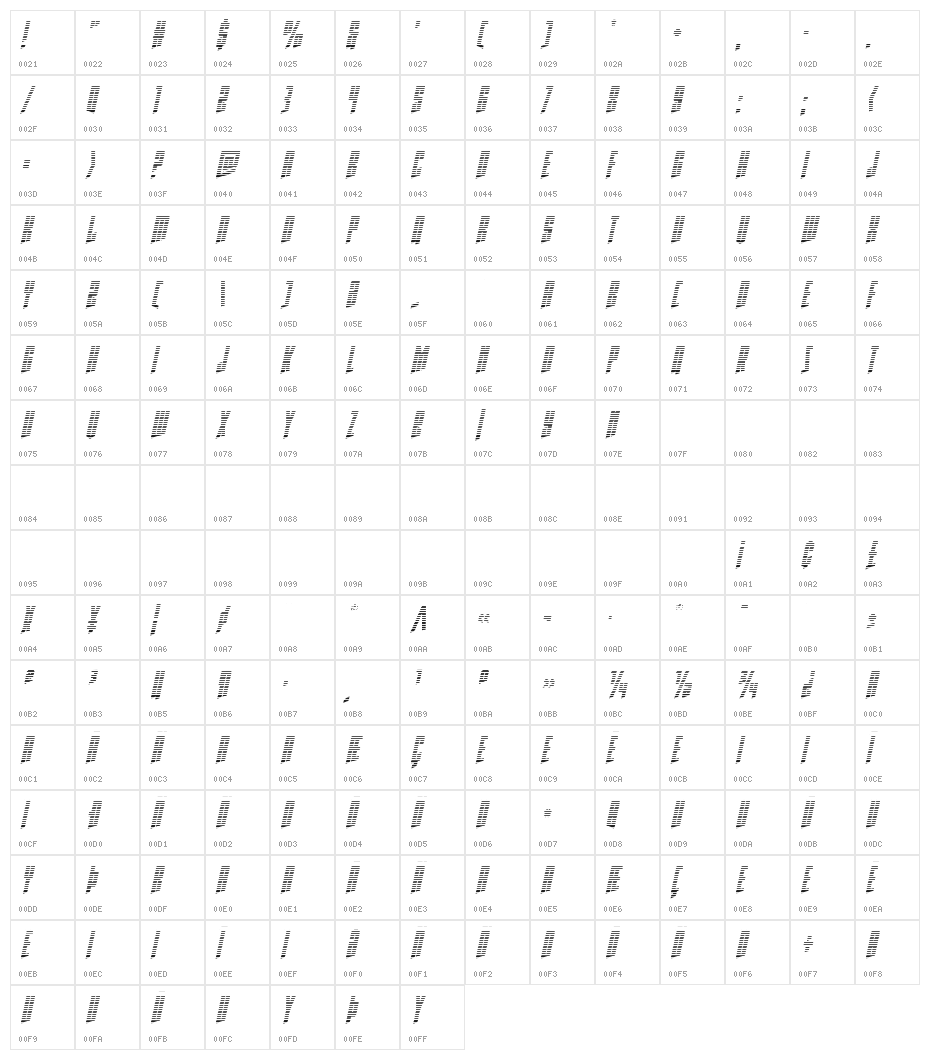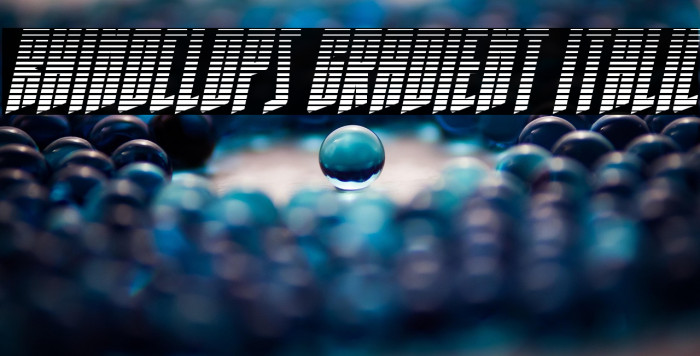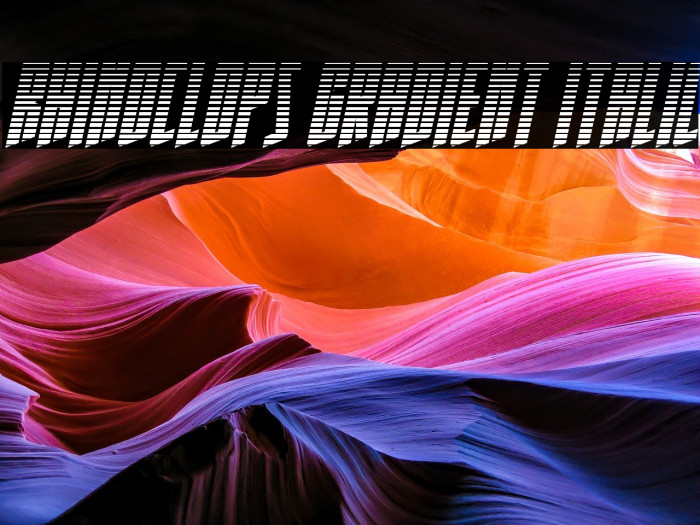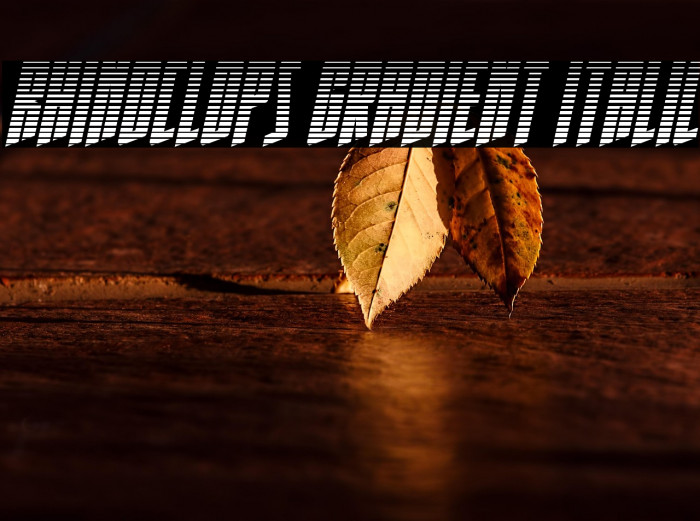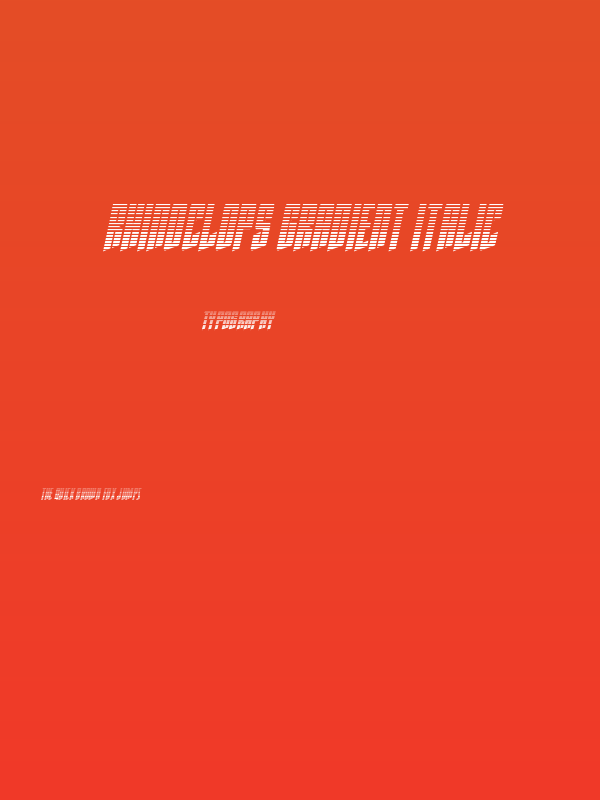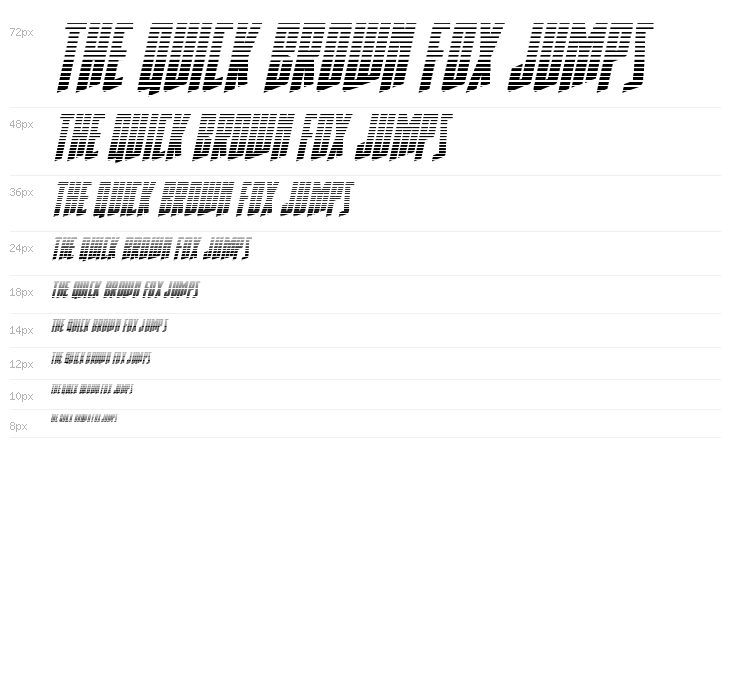
Rhinoclops Gradient Italic Font
Rhinoclops Gradient Italic Description
This font features a bold, dynamic design with a distinct gradient effect that gives each character a sense of movement and depth. The italicized style enhances the forward-leaning appearance, creating a sense of urgency and modernity. The characters are composed of horizontal lines that vary in thickness, contributing to a unique visual texture. This design choice results in a high-contrast look that is both eye-catching and stylish. The font's structure is consistent across uppercase, lowercase, numbers, and special characters, maintaining a cohesive aesthetic throughout.
| Proposed Projects | This font is perfect for projects that require a modern and energetic feel, such as sports branding, tech advertisements, or dynamic posters. |